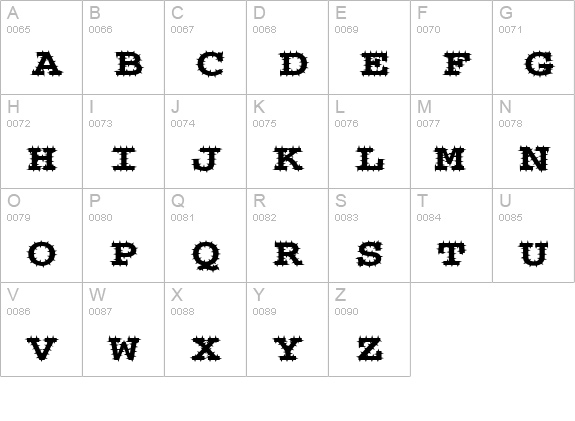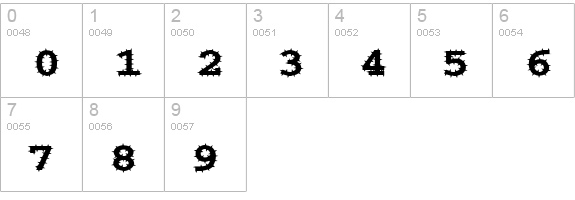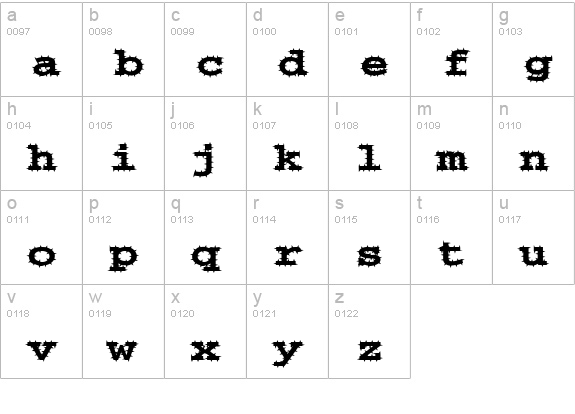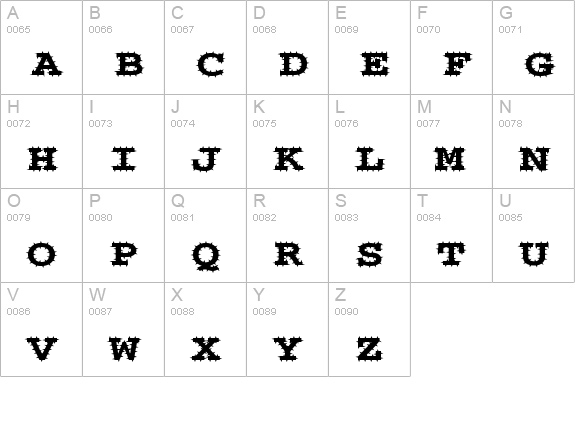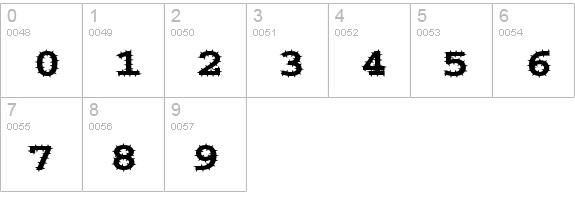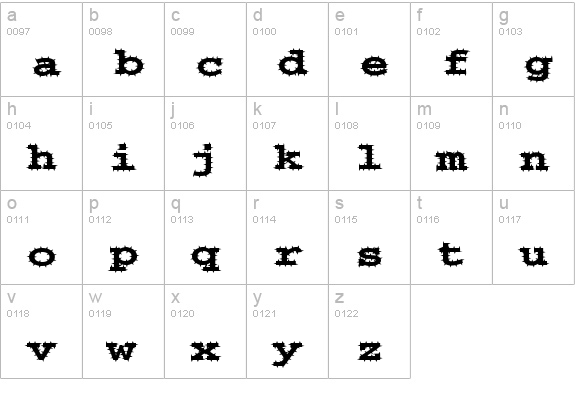
ChiselSpikedExtended Normal is the standard, neutral variant in the ChiselSpikedExtended typeface family \xE2\x80\x94 well suited to general body text, paragraphs, and standard typographic work.
ChiselSpikedExtended Normal font is a versatile and eye-catching typeface that combines sharp edges with a modern aesthetic. Its distinctive chisel-like spikes add a touch of edginess to any design project, making it perfect for headlines, posters, and branding materials. This font exudes a sense of strength and boldness, making it ideal for projects that require a bold statement. Best of all, ChiselSpikedExtended Normal font is available for free download at FontsMarket.com. This means you can easily access this unique and striking typeface to elevate your designs without any cost. Don't miss out on this opportunity to add a touch of edge and sophistication to your projects with this freely available font.